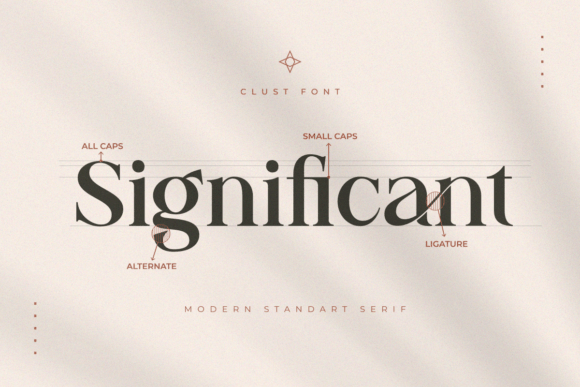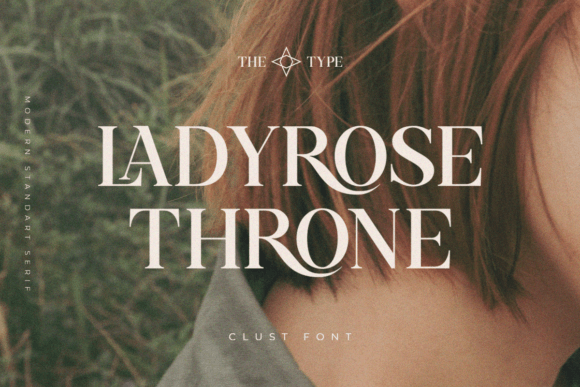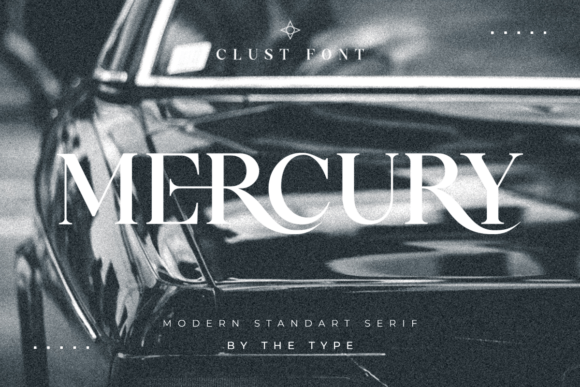
Clust Font
Clust – a modern serif font Inspired by elegance and luxury. This font looks like a classic (conservative) serif, which is perfect for texts. It also can be more expressive, playful, and modern with alternative substitutes and ligatures -try to play with them and you will get uniqueness in your project.This font is PUA encoded, which means you can access all of the glyphs and swashes with ease!